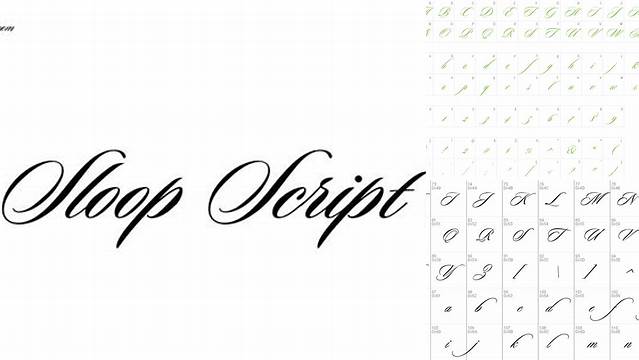
Sloop Script: Free Font Download For Your Projects
Hey guys! Are you on the hunt for a stylish and versatile font to add some flair to your design projects? Look no further! Today, we're diving into the wonderful world of Sloop Script, a font that can bring a touch of elegance and personality to just about anything you're working on. Whether you're designing invitations, crafting logos, or just want to spice up your social media graphics, Sloop Script might be just what you need. Let's explore what makes this font so special and how you can snag it for free.
What is Sloop Script?
Sloop Script is a beautifully crafted typeface that falls into the script font category. Script fonts are designed to mimic handwriting, and Sloop Script does this with a modern and refined twist. It's not your grandma's calligraphy; instead, it offers a contemporary feel that's perfect for a wide range of applications. The fluid lines and elegant curves give it a sophisticated yet approachable vibe. This makes it incredibly versatile – you can use it for both formal and informal projects, depending on how you style it.
One of the things that sets Sloop Script apart is its readability. While some script fonts can be overly ornate and difficult to decipher, Sloop Script strikes a great balance between style and legibility. This is crucial, especially when using it for body text or in designs where clarity is paramount. The even spacing and carefully designed letterforms ensure that your message gets across without any unnecessary strain on the reader's eyes.
Furthermore, Sloop Script often comes with a variety of weights and styles, giving you even more flexibility. You might find versions like Sloop Script Light, Regular, Medium, Bold, and even italics. Each of these variations can be used to create different effects, from a delicate and airy feel to a strong and assertive statement. Experimenting with different weights can add depth and visual interest to your designs, helping you to create a truly unique look. When you are trying to make your project pop out, you need a font that's going to match that same level of energy, and this is that font!
Why Choose Sloop Script?
So, why should you choose Sloop Script over the countless other fonts out there? Well, there are several compelling reasons. First and foremost, its aesthetic appeal is undeniable. It's a font that simply looks good. The elegant curves and fluid lines create a visual harmony that's pleasing to the eye. This can instantly elevate the look and feel of your designs, making them more professional and polished. Whether you're designing a wedding invitation or a business card, Sloop Script can add a touch of sophistication that sets you apart. The visual appeal allows you to deliver something more personal than other fonts.
Secondly, Sloop Script is incredibly versatile. As mentioned earlier, it can be used for a wide range of projects. Its modern and refined style makes it suitable for everything from branding and advertising to web design and print materials. You can use it for headlines, subheadings, body text, and even logos. Its adaptability makes it a valuable asset to any designer's toolkit. Because it is so versatile, you don't need to worry if you are using the same one over and over. You can make this one of your main options to go to because it is always going to work.
Another great reason to choose Sloop Script is its readability. Some script fonts can be difficult to read, especially in smaller sizes. Sloop Script, however, maintains its clarity even at smaller point sizes. This is crucial for ensuring that your message is easily understood. After all, what's the point of having a beautiful font if no one can read it? It's important to have something that is not only eye-catching, but also easy to read, and Sloop Script allows you to have both.
Finally, and perhaps most importantly for some, Sloop Script is often available for free download. This means you can get your hands on a high-quality font without spending a dime. Free fonts are a fantastic resource for designers of all levels, especially those who are just starting out or working on a tight budget. The best part about this is that you don't have to spend any money on the font itself, leaving more room in the budget for any other tools you may need to use.
Sloop Script is a fantastic font that can add a touch of elegance and personality to your design projects. Its versatility, readability, and often free availability make it a valuable asset to any designer's toolkit. So, go ahead and download Sloop Script today and start experimenting with it in your designs. You might be surprised at how much of a difference it can make!